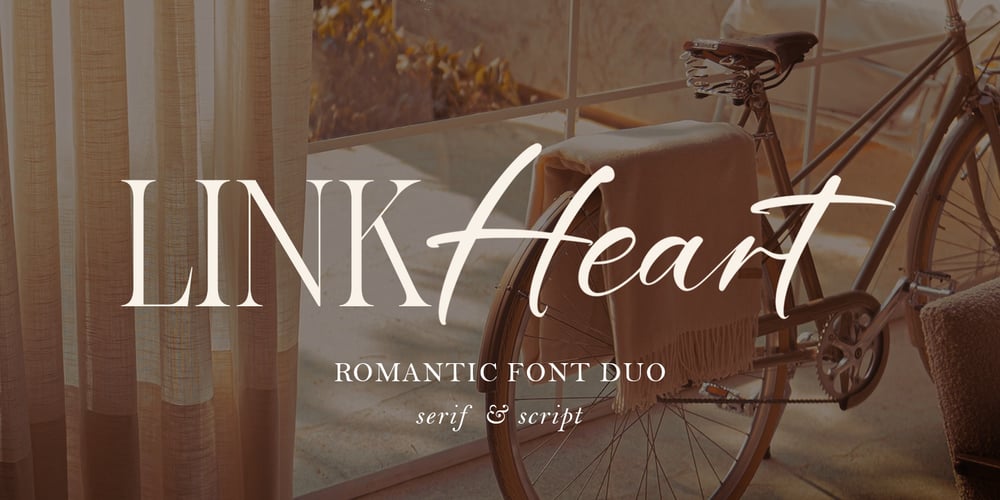
Link Heart Elegant Font Duo Font Family was designed by Muhammad Sirojuddin and published by Lettersiro. Link Heart Elegant Font Duo contains 2 styles and family package options. Link Heart is a romantic font created with joy and love. This font makes a harmonious combination for your modern and classic layouts. You can mix it together as word or text.Link heart is perfect for any luxury design like hotel logo, restaurant menu, restaurant poster or web, wedding invitation, and many others